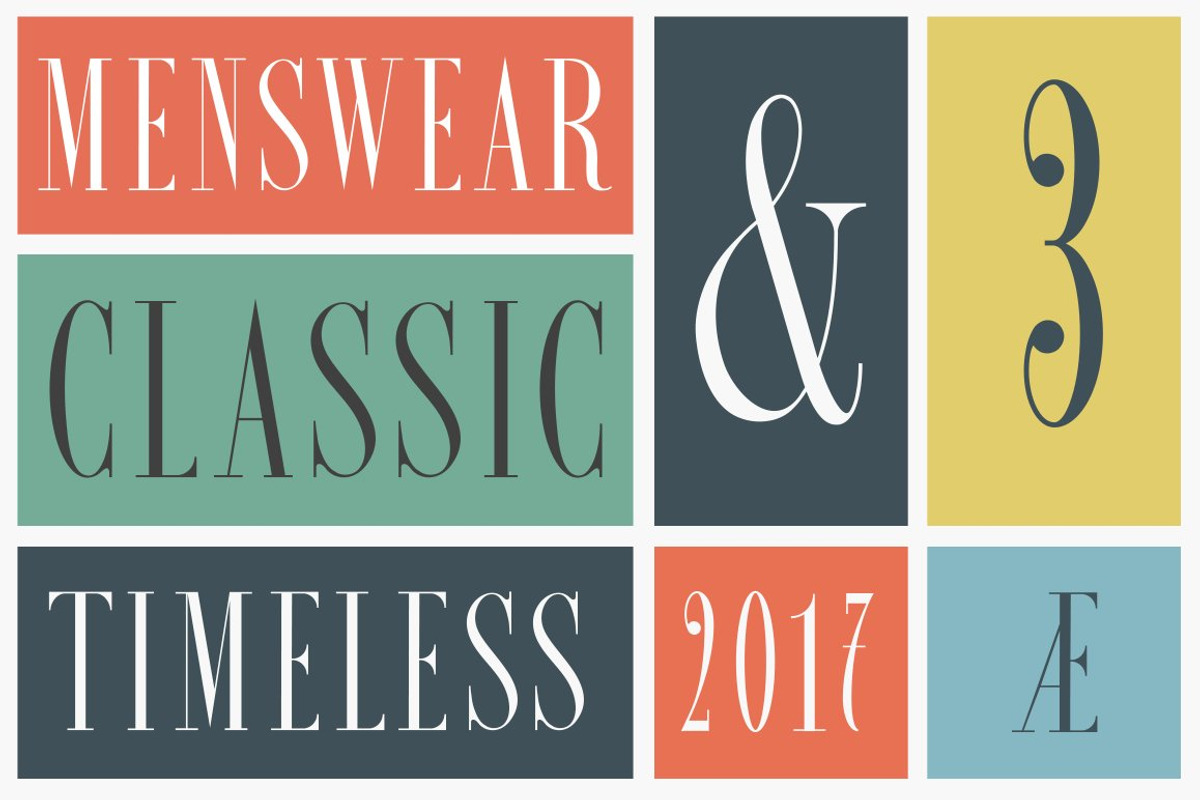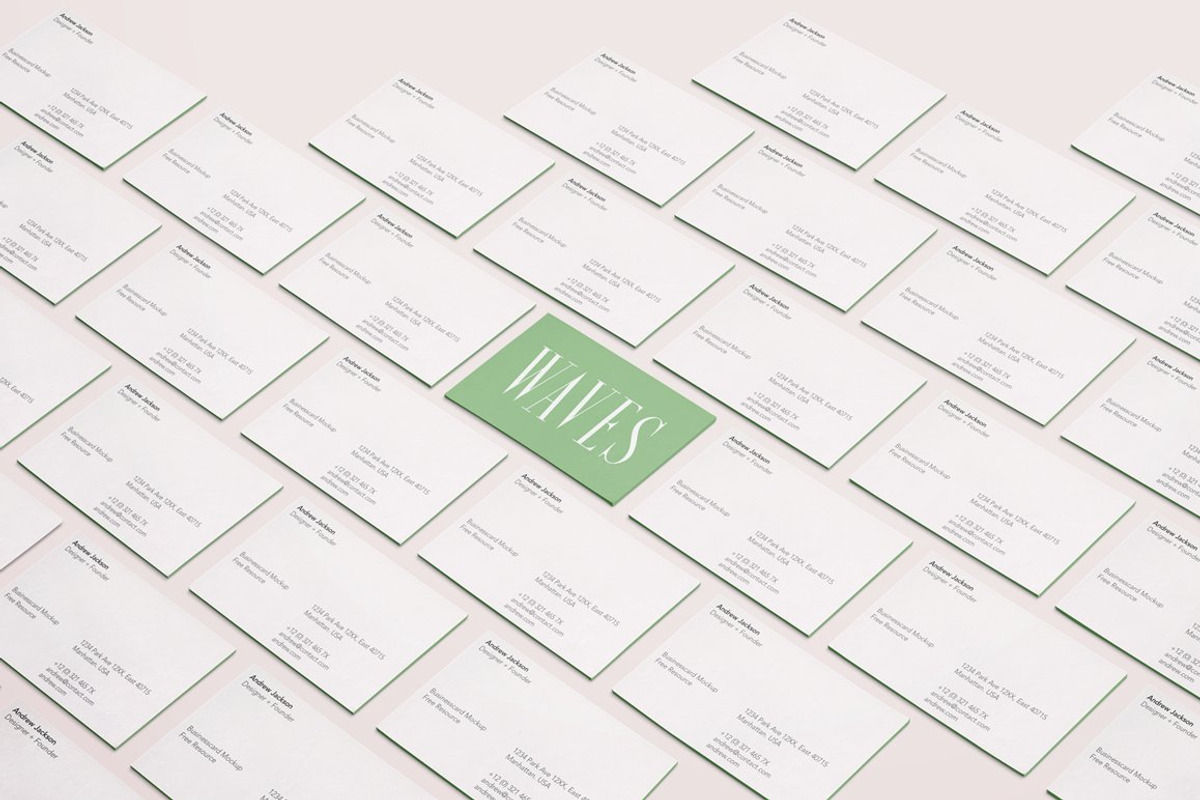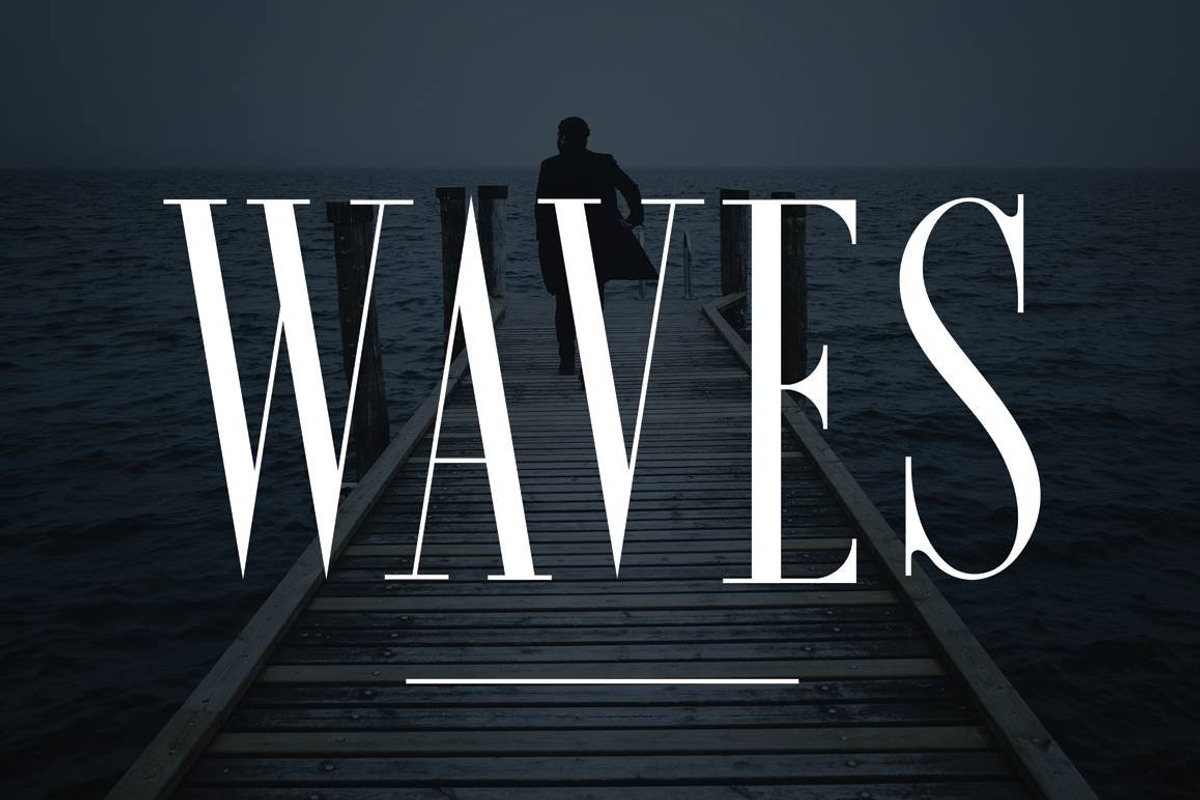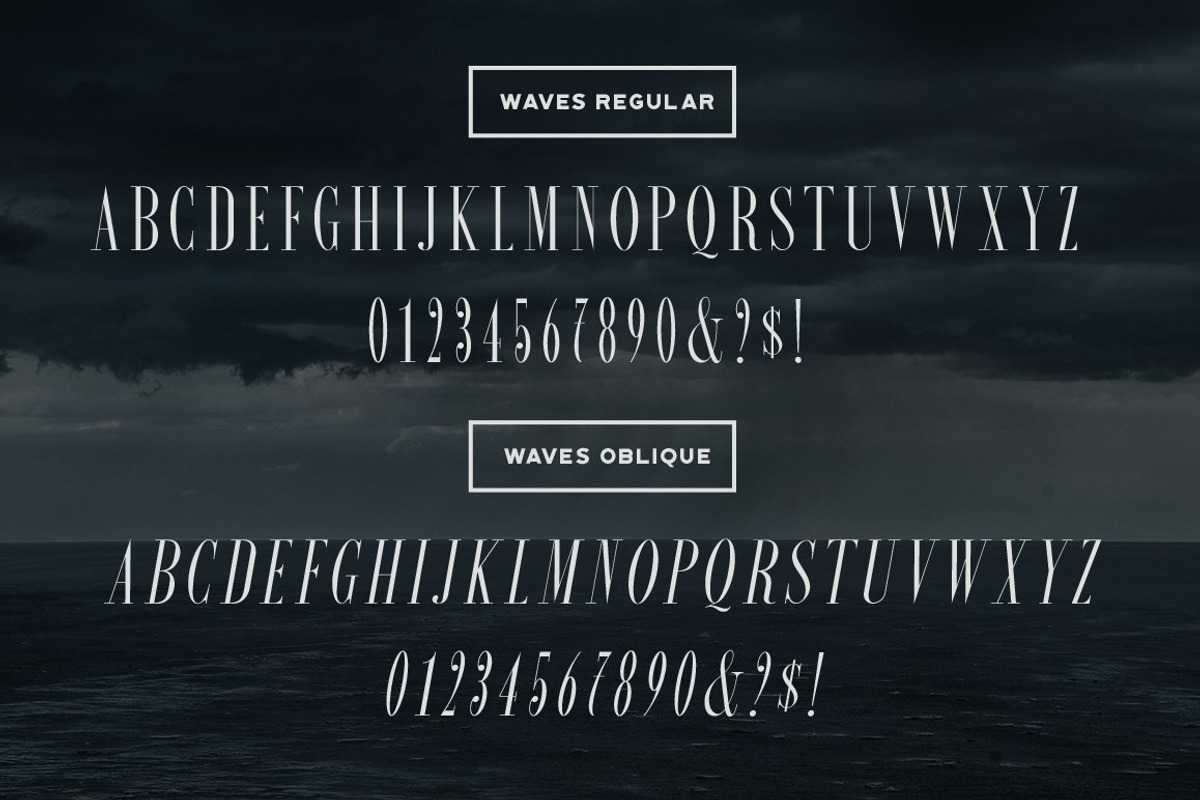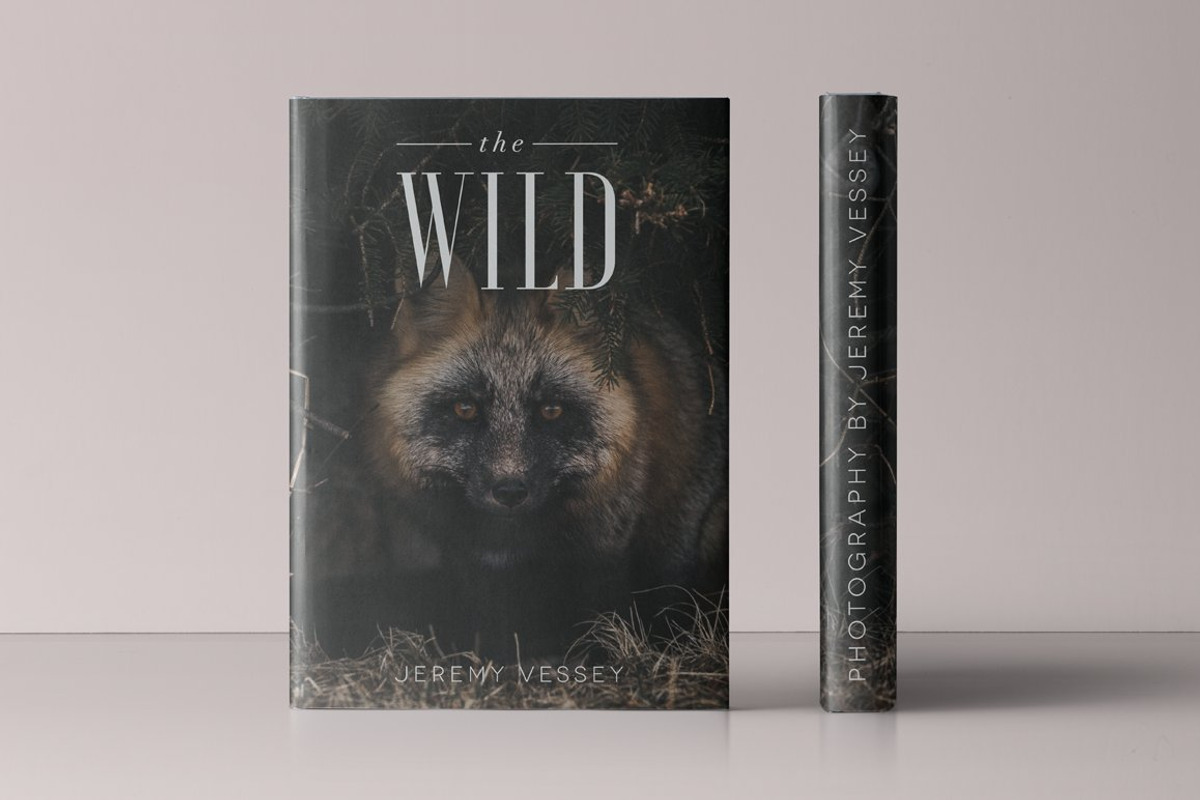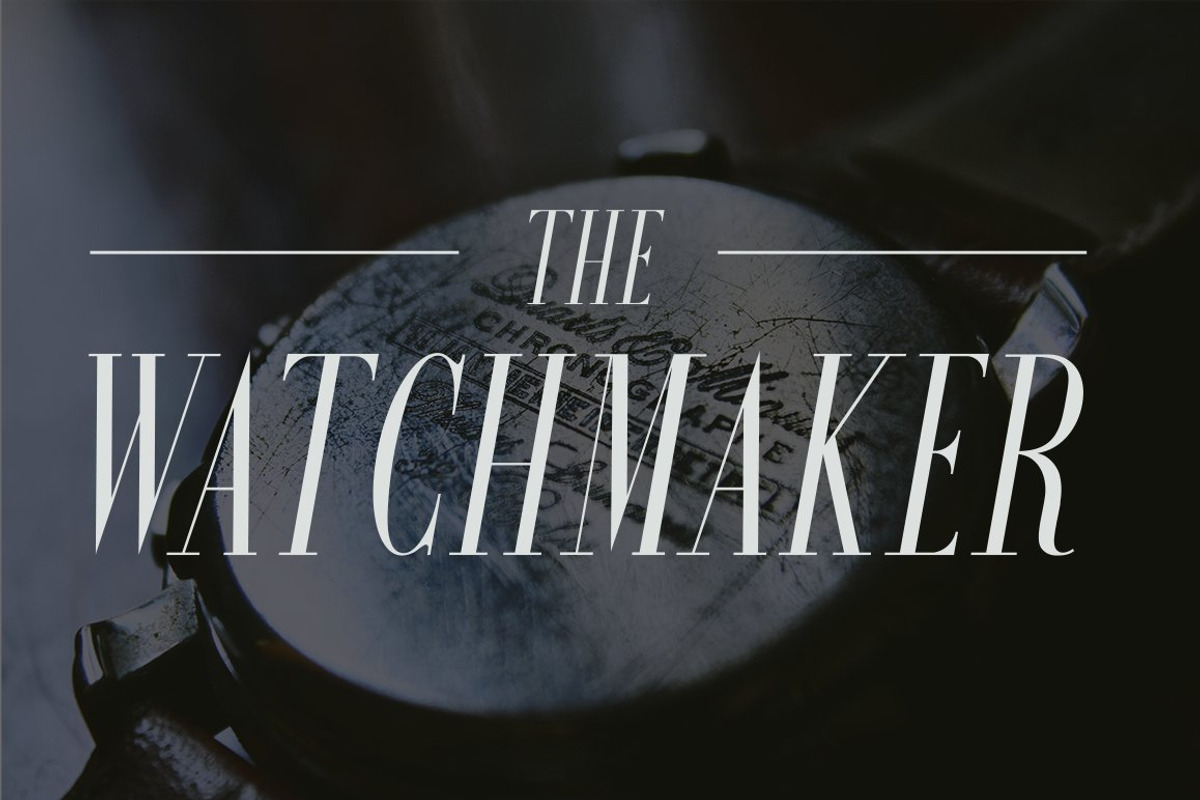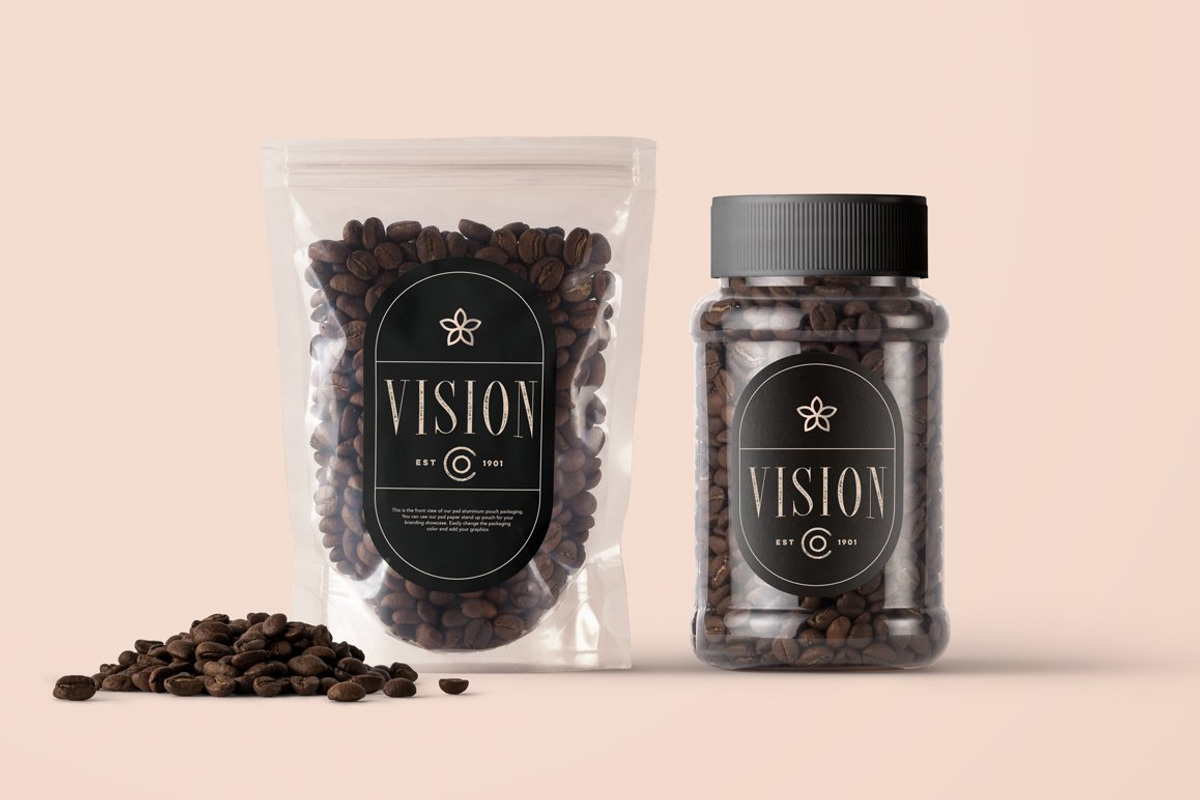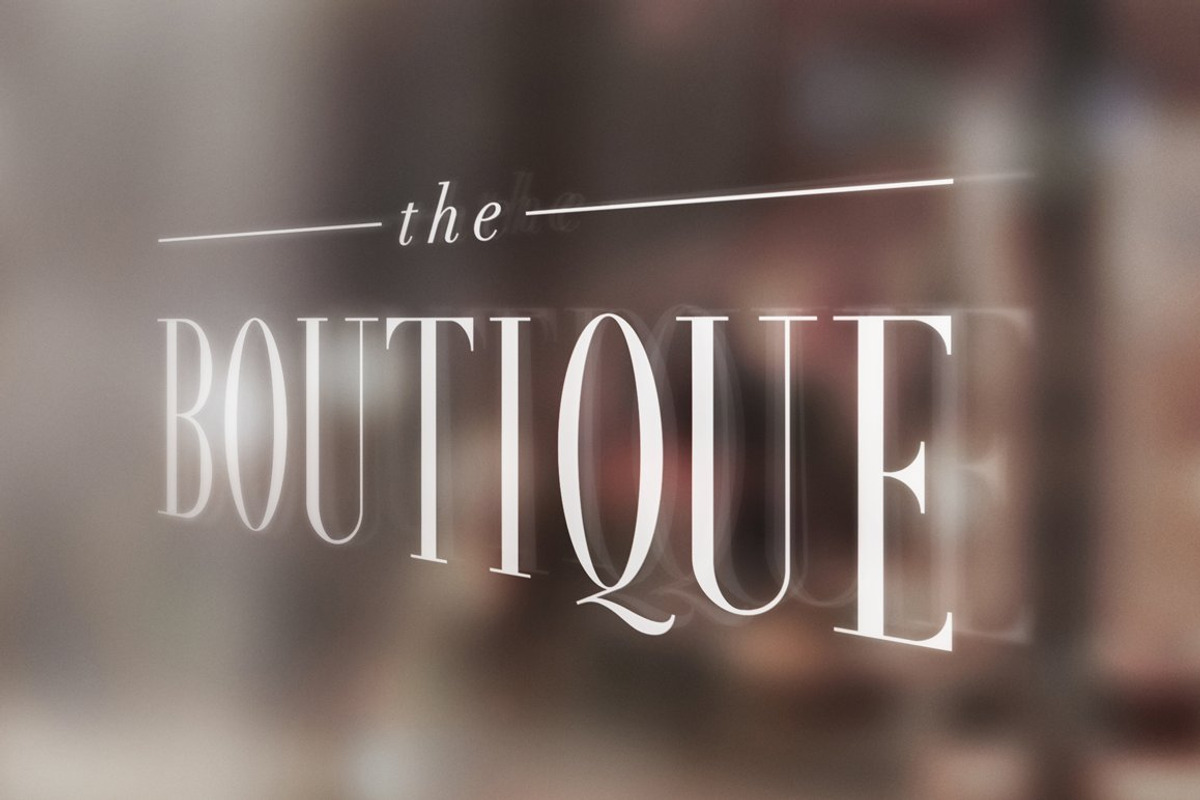
WAVES | A Condensed Serif
Waves
Designed by Jeremy Vessey of Hustle Supply Co.
Introducing Waves - An Ultra Condensed Serif Typeface
Get ready for a font that can do it all!
Waves helps you effortlessly create eye-catching displays for any of your products. From a classic magazine type feel to a beautiful high-end boutique display, the options are endless.
Waves has multi-language support with international characters included.